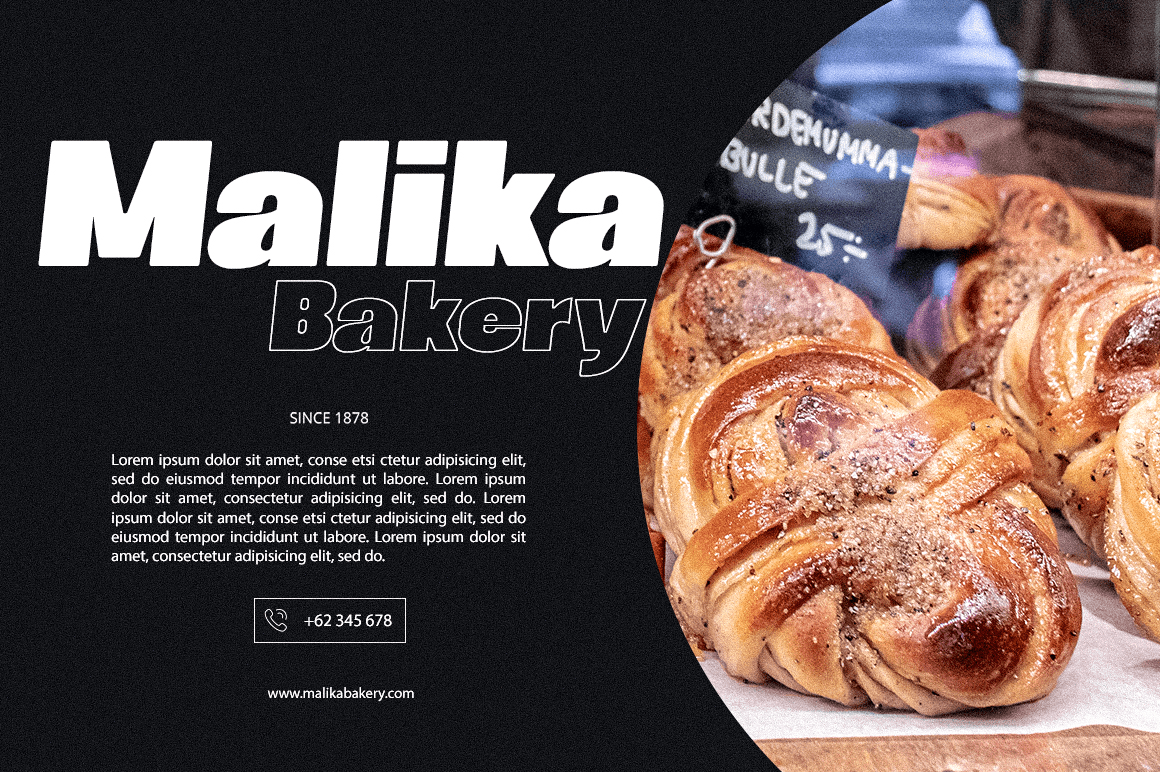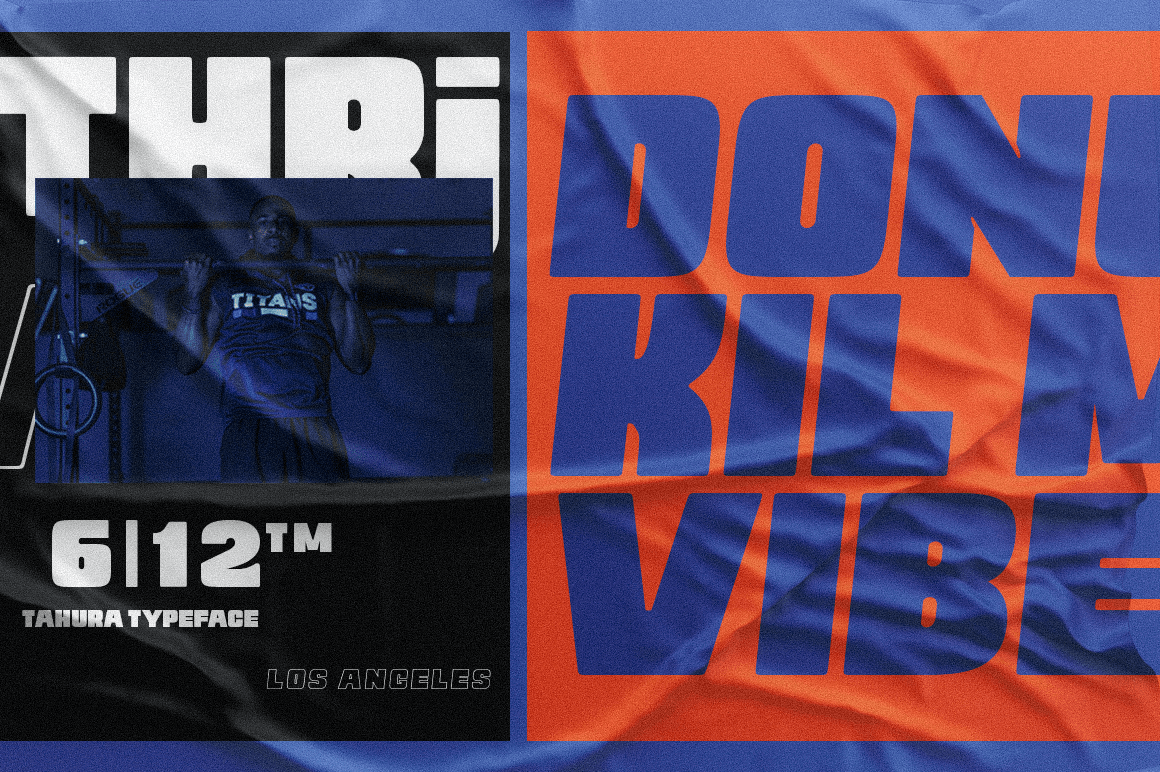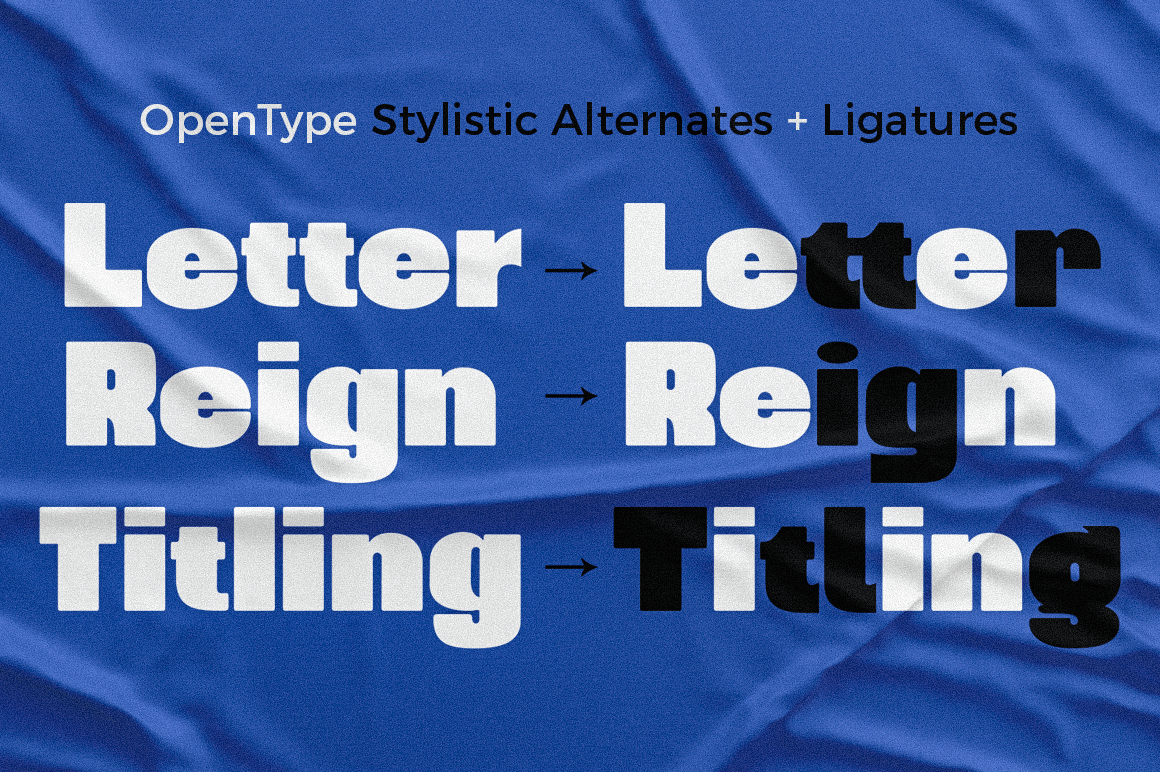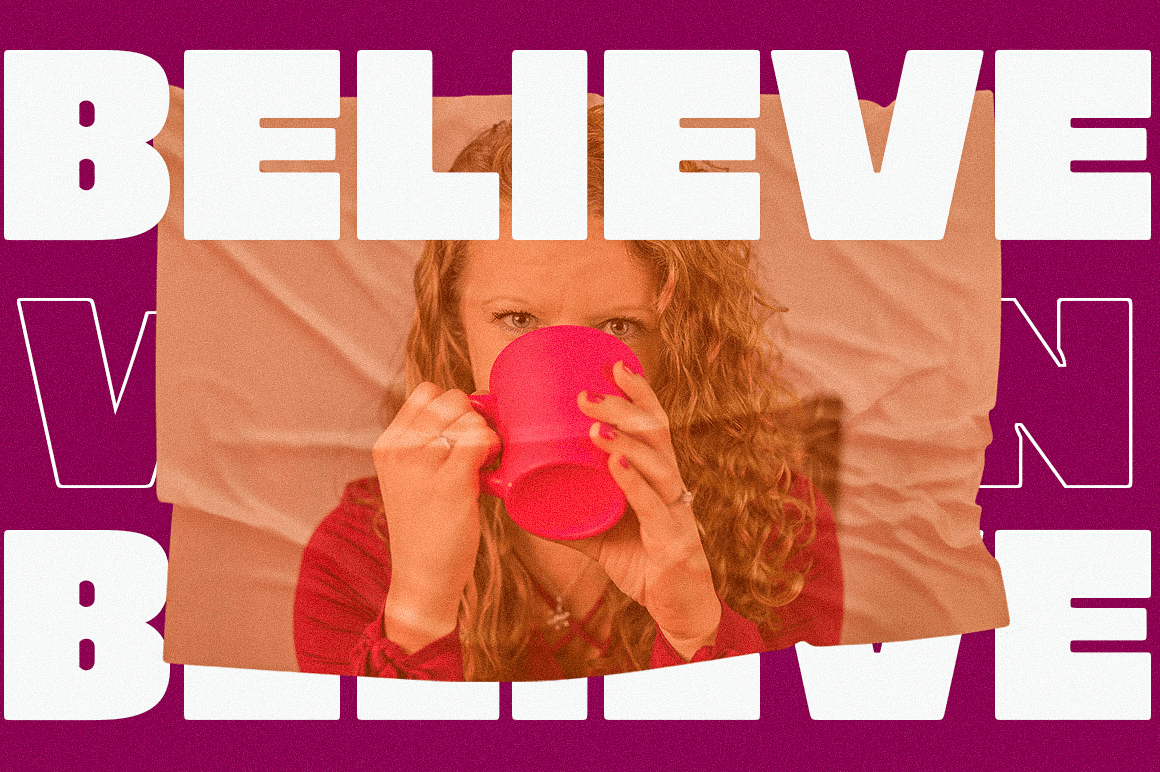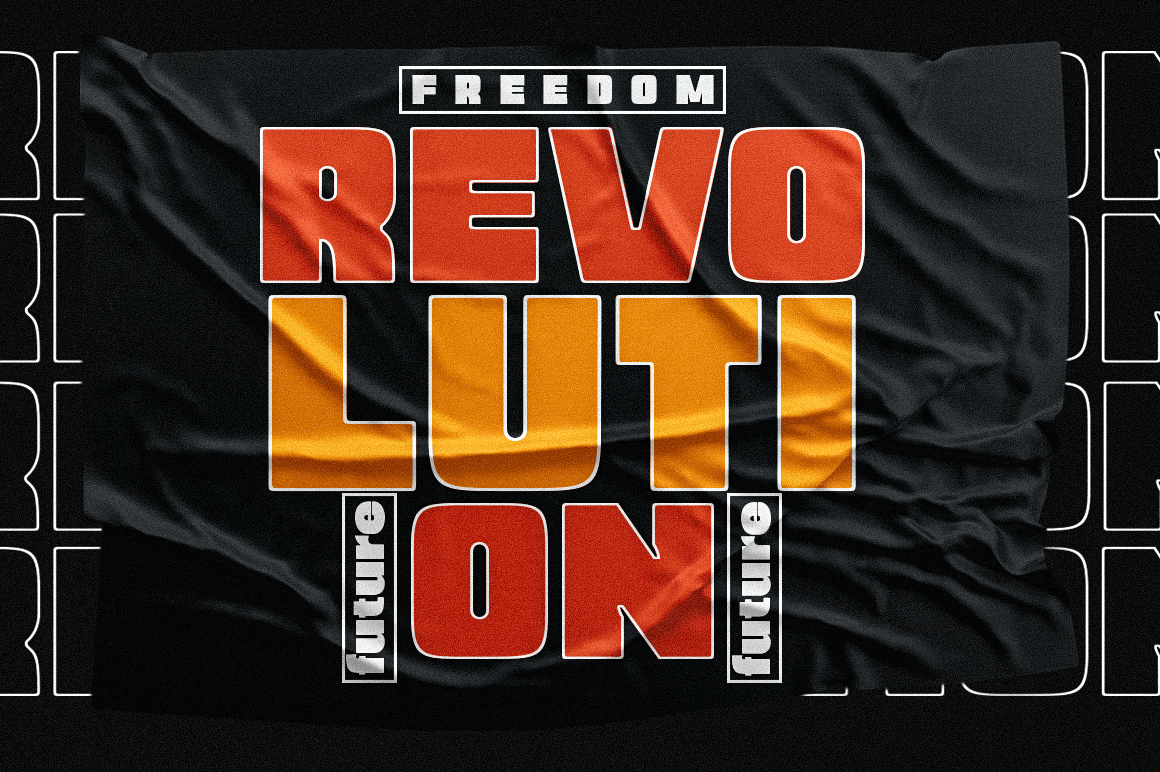
About Tahura
Introducing Tahura – a classy typeface that is luxuriously bold in style. This font is specifically for strong use but has a versatile touch. It consists of 4 styles: Regular, Italic, Outline, and Outline Italic. It is very suitable for all medium or…